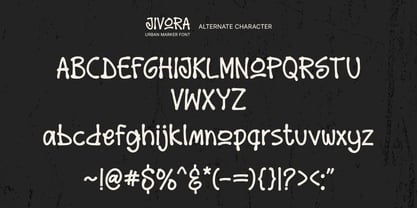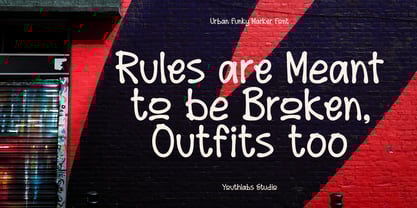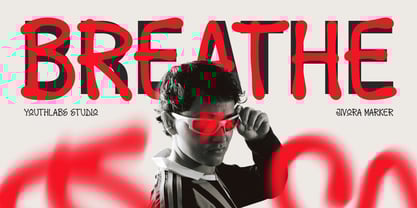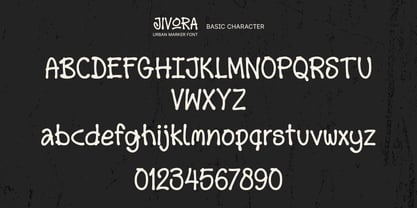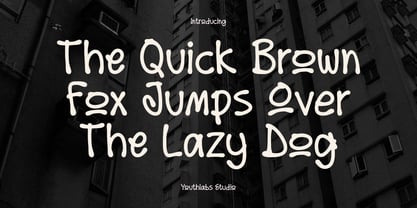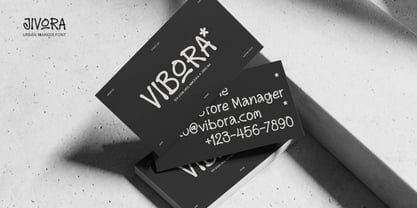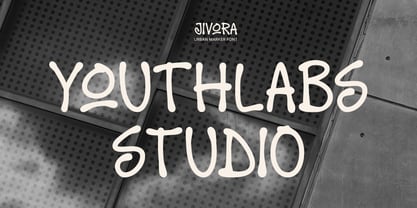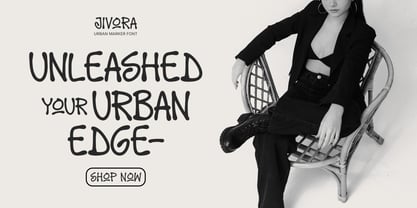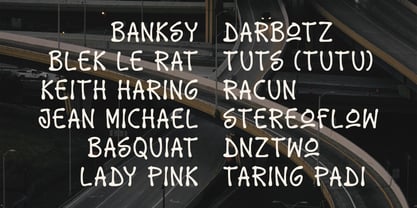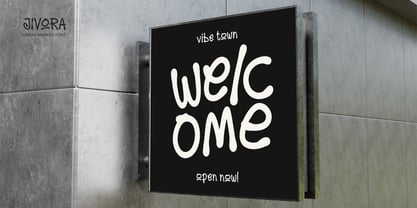
Jivora
by Youthlabs
The Jivora Font Family was designed by Fathi Al Ghazi and published by Youthlabs. Jivora contains 1 styles. More about this family
Jivora is an urban funky marker font designed to bring energy, personality, and creativity to your designs. Featuring bold strokes, playful curves, and a hand-drawn vibe, Jivora captures the essence of street art and modern urban culture.
Perfect for posters, branding, packaging, music covers, social media, and merchandise designs, this font adds a youthful and dynamic touch to any project. With its organic marker-style flow, Jivora is ideal for designers who want a fun, casual, and expressive typeface.
Designers: Fathi Al Ghazi
Foundry: Youthlabs